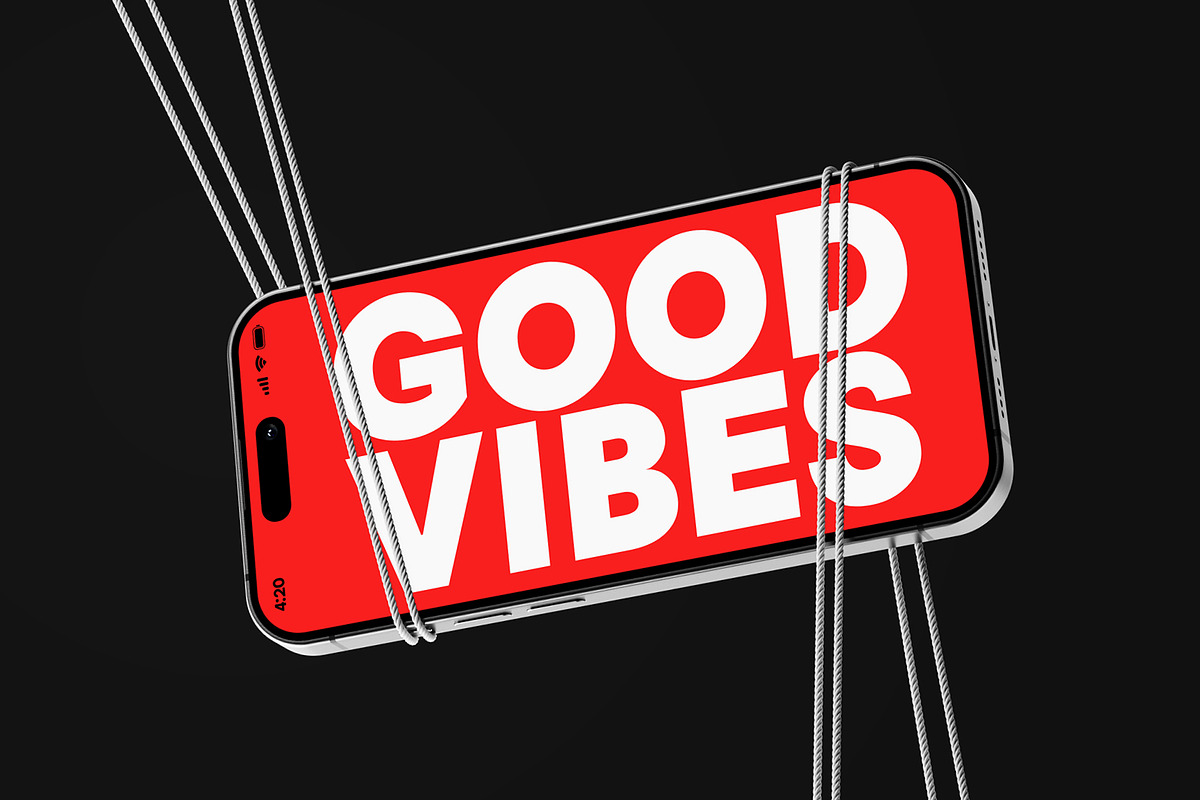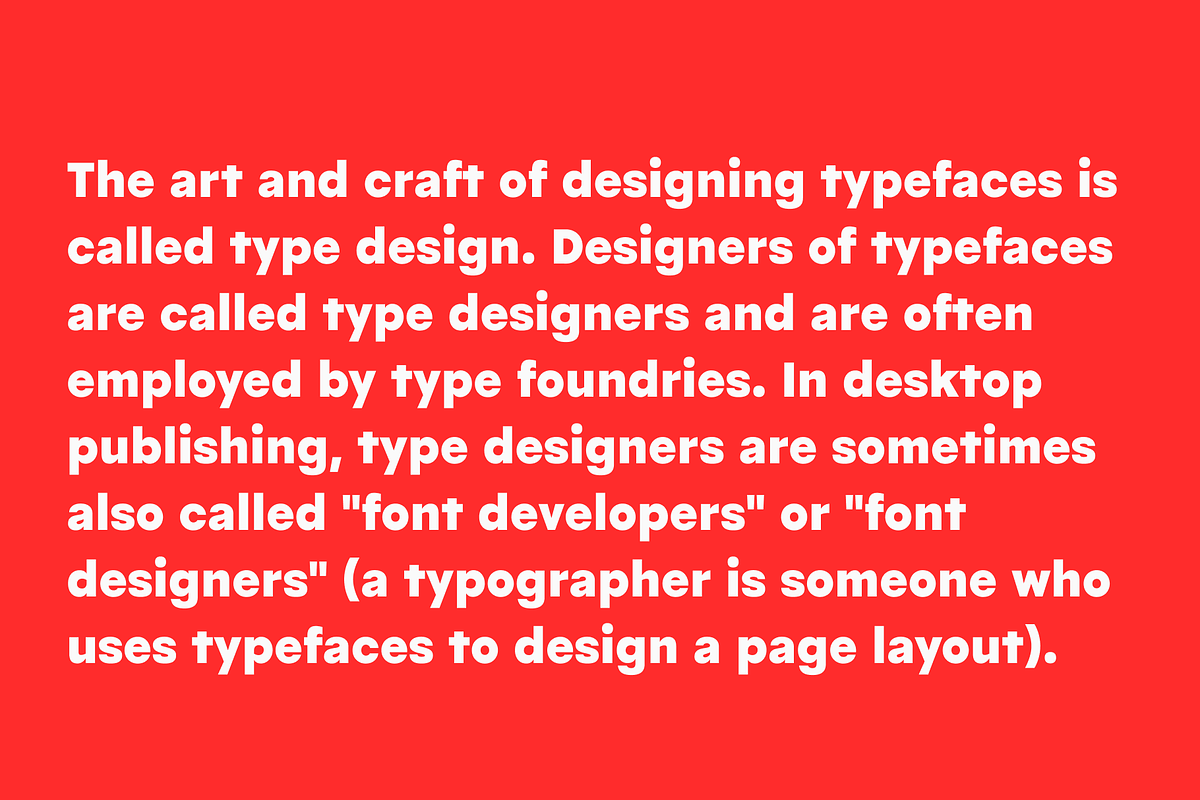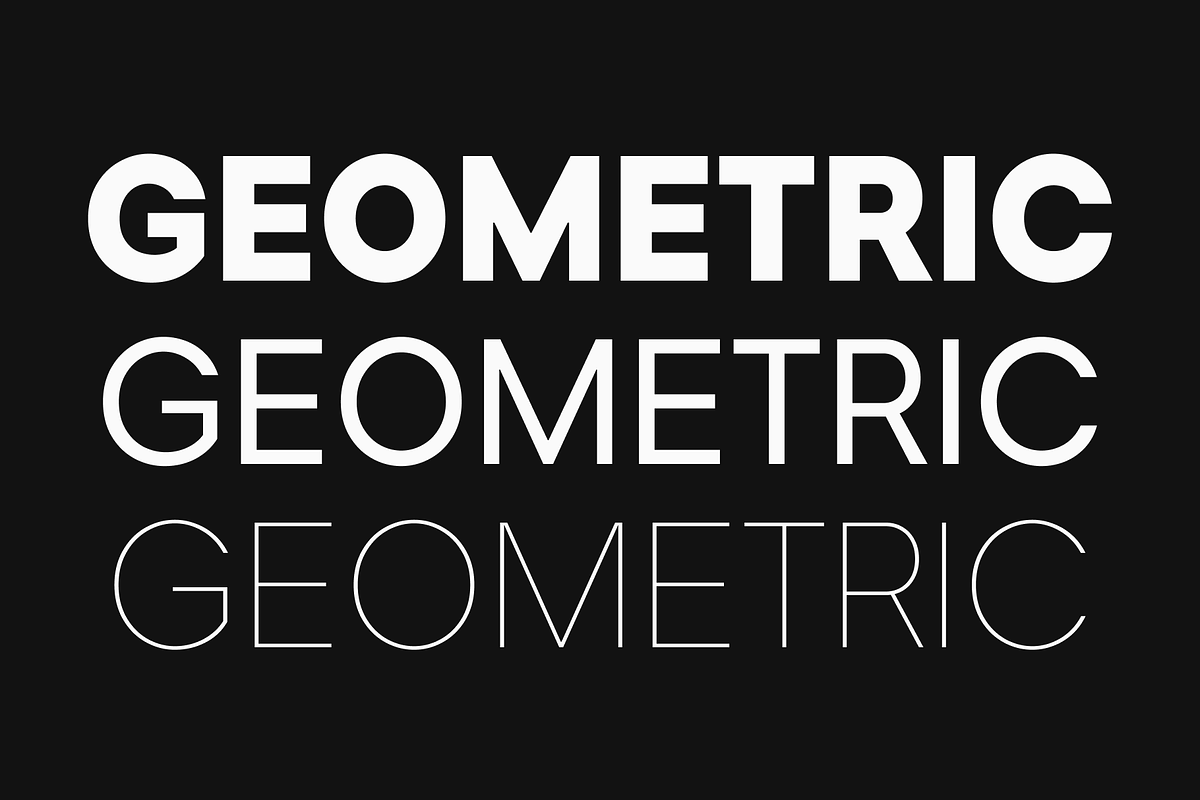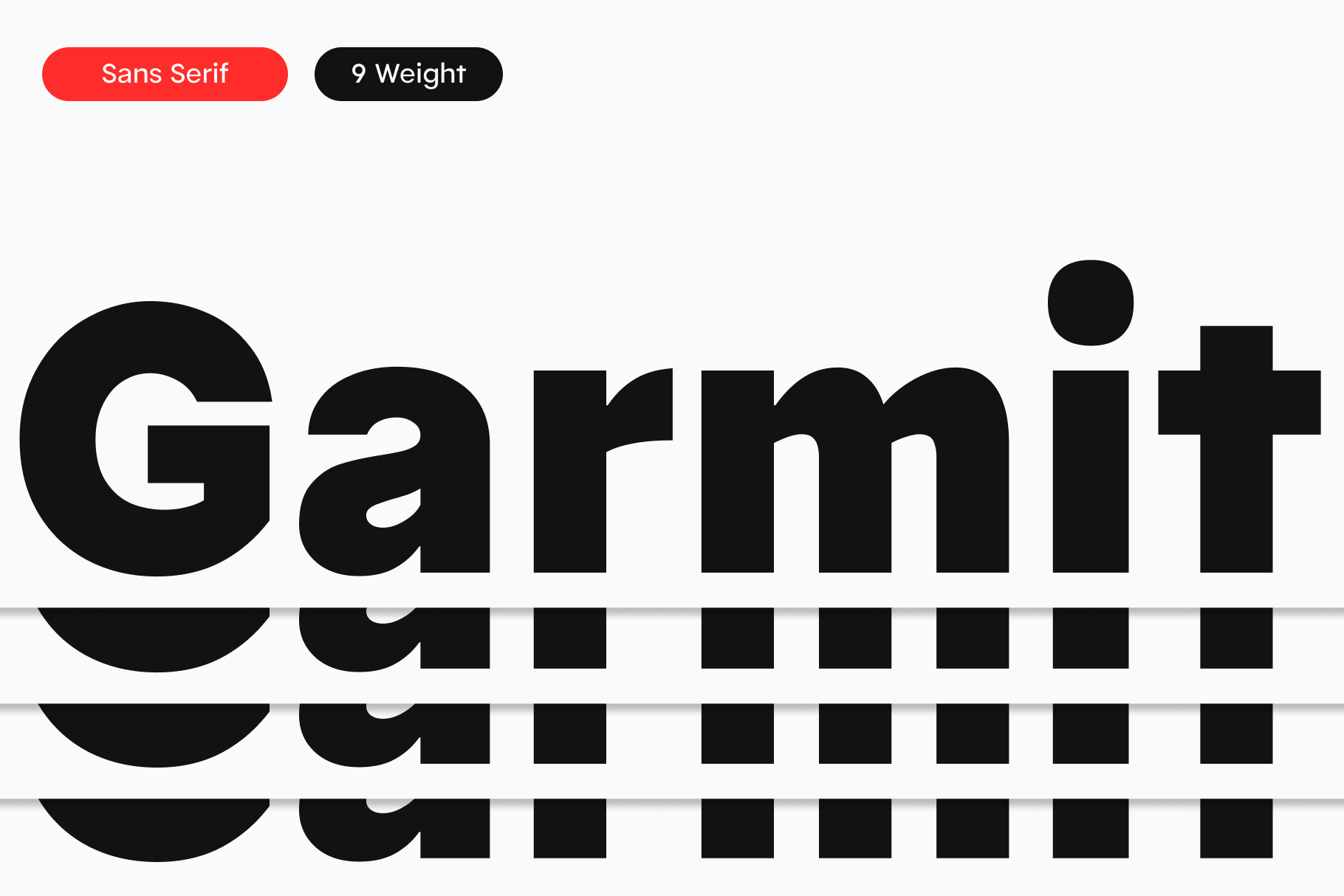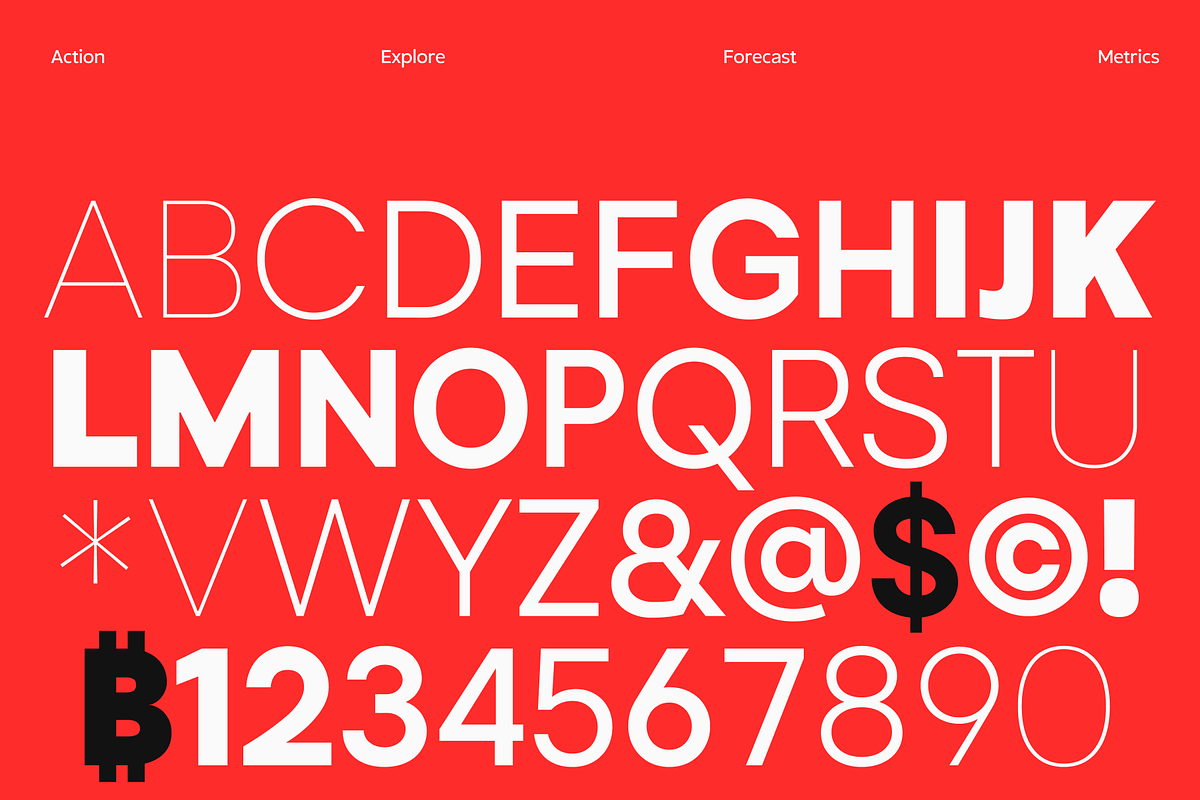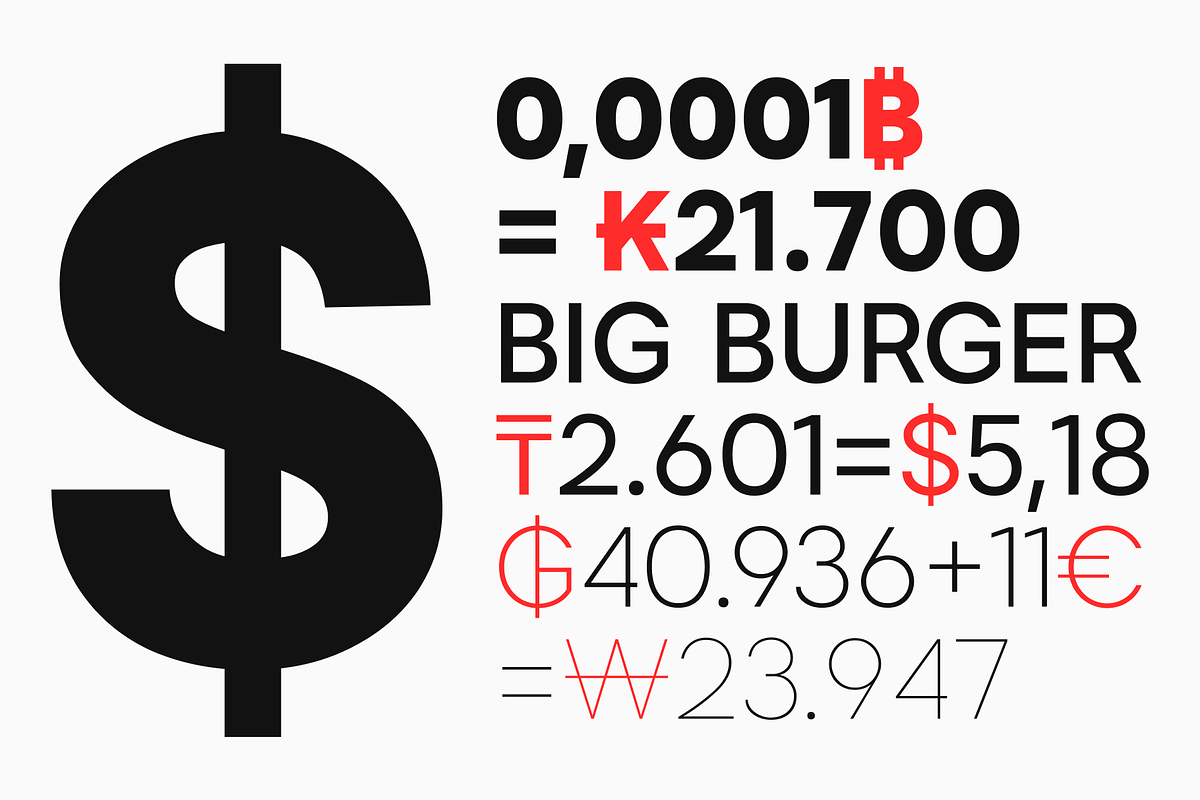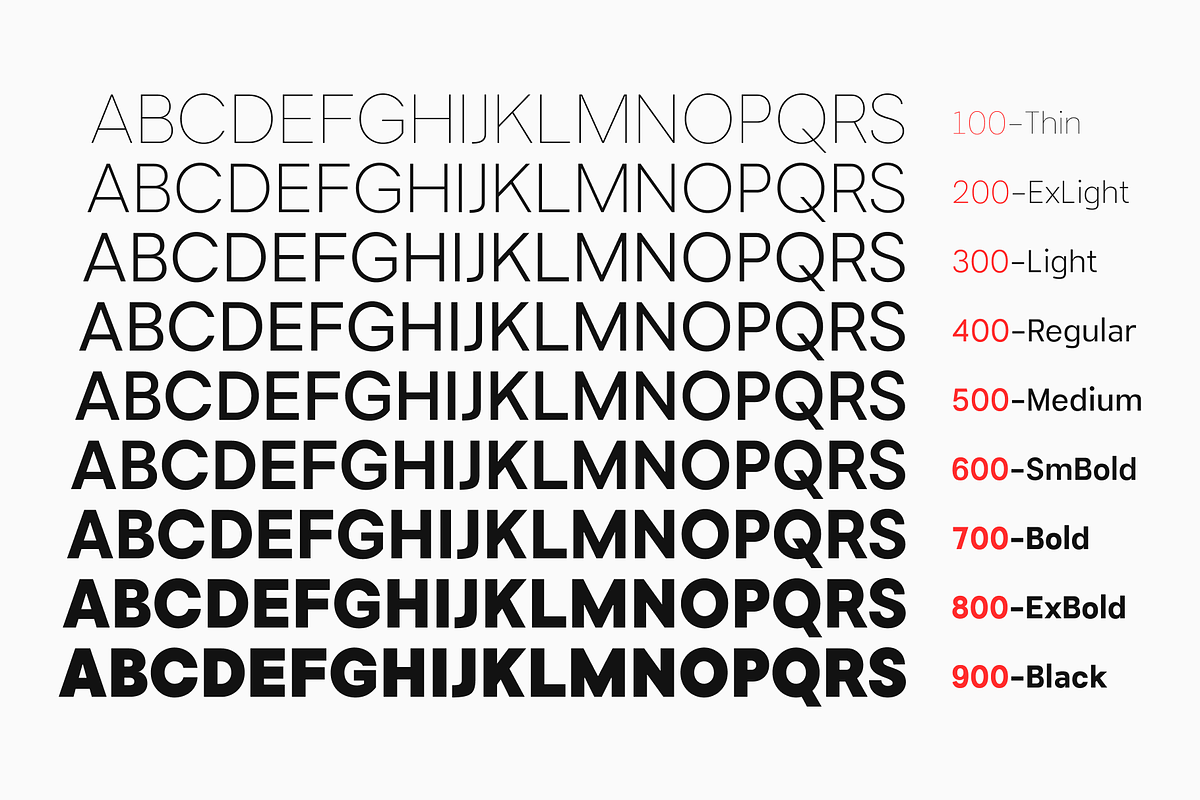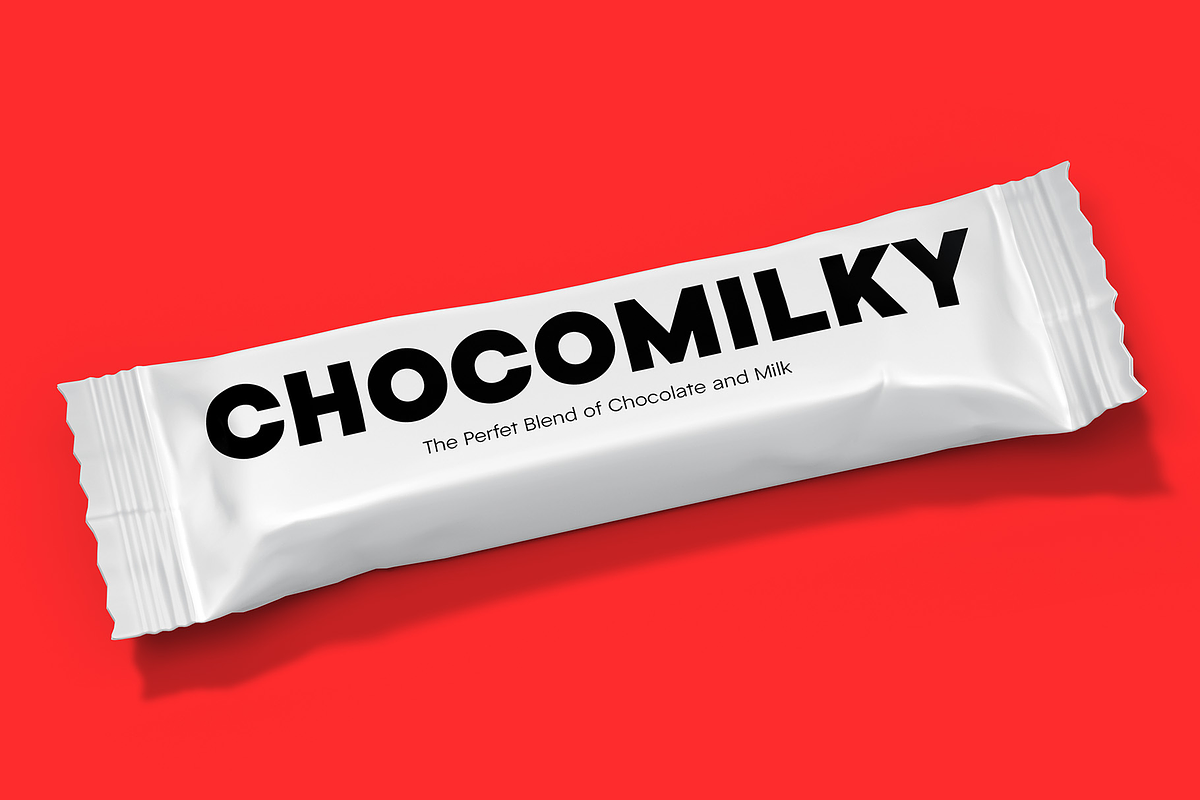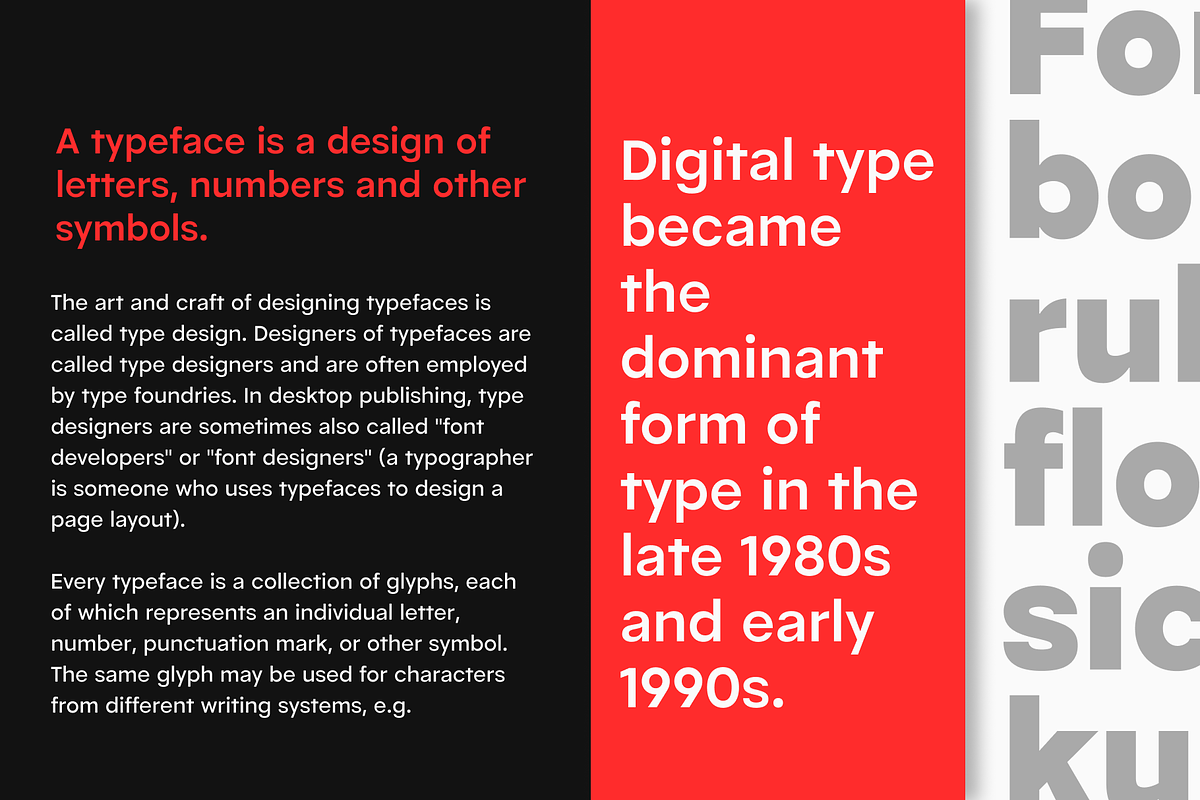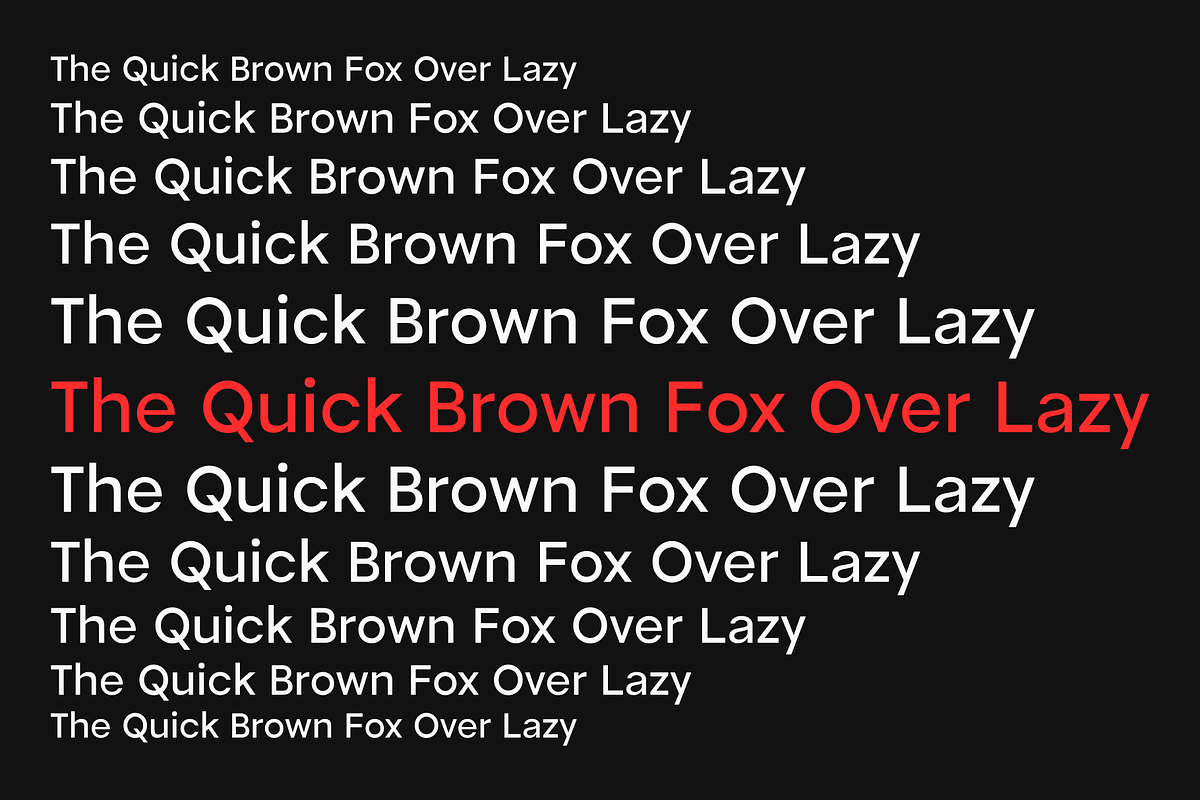
Garmit Family Font
Garmit is a geometric sans-serif typeface that emphasizes precision and simplicity. With balanced letterforms and a clean structure, Garmit delivers a modern aesthetic suitable for a wide range of design needs, from branding and editorial to digital interfaces. Its sharp yet friendly characteristics ensure optimal readability without sacrificing uniqueness. Garmit is the perfect choice for designers seeking a professional look with a futuristic touch.